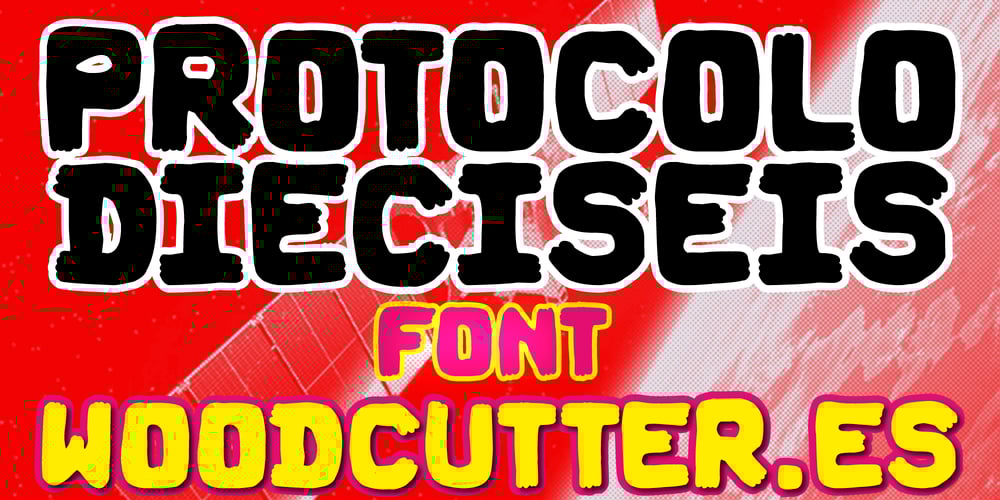
Protocolo Dieciseis
Protocolo Dieciseis font
Protocolo Dieciseis Font Family was designed by Jordi Manero and published by Woodcutter. Protocolo Dieciseis contains 1 styles and family package options. “Protocolo Dieciséis” is a handmade-style font characterized by its robust letters and brush-stroked contours. This typeface conveys an artisanal and authentic feel, ideal for projects seeking a personal and unique touch. The letters feature strong and confident strokes, perfect for headlines, posters, and designs that require a strong visual impact. “Protocolo Dieciséis” combines the boldness of thick letters with the softness of brush-stroked contours, creating a balanced and attractive appearance.–Uppercase